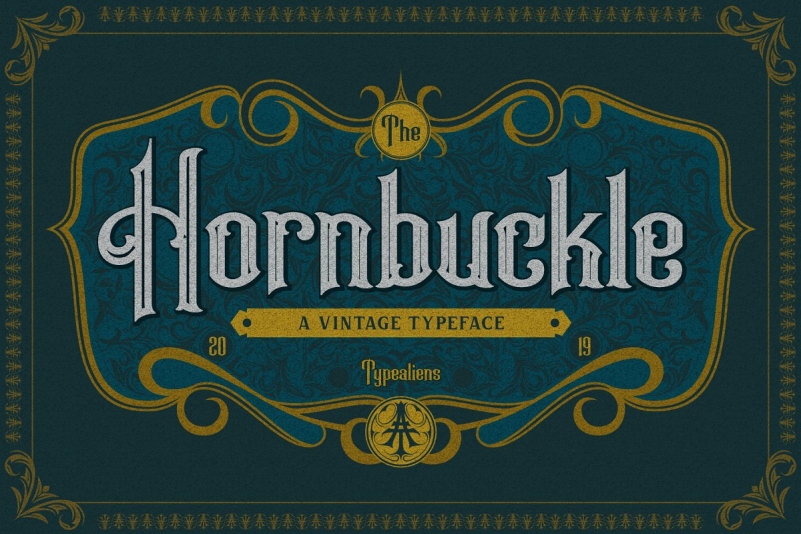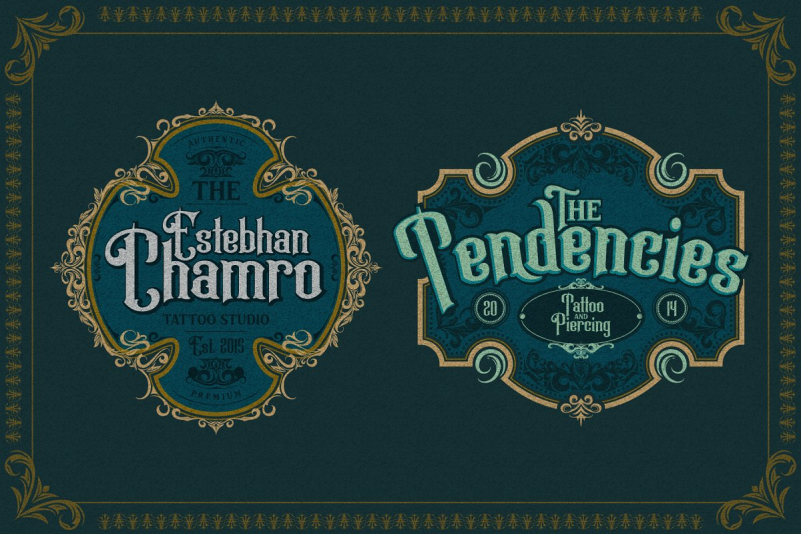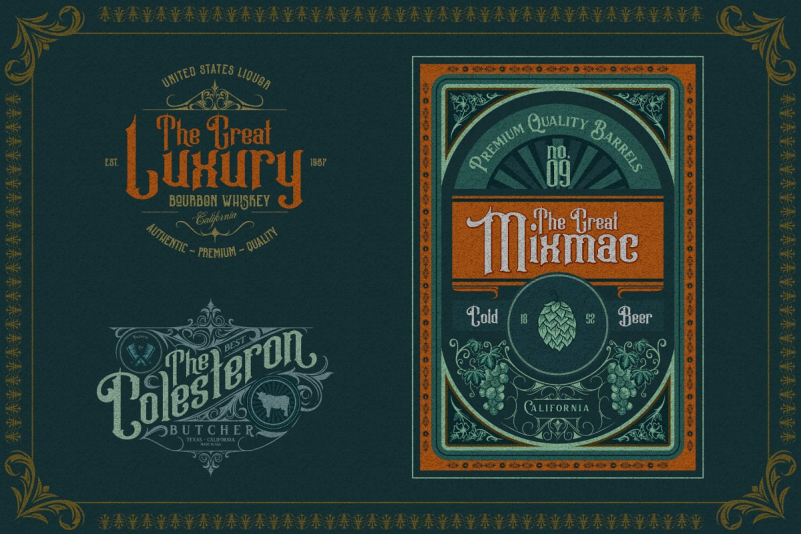
Hornbuckle Font
is a vintage font with a victorian style and is very suitable to be combined with the Art Nouveau style. Hornbuckle will also be suitable for making vintage logos, liquor label designs, badge designs, packaging designs and poster designs.